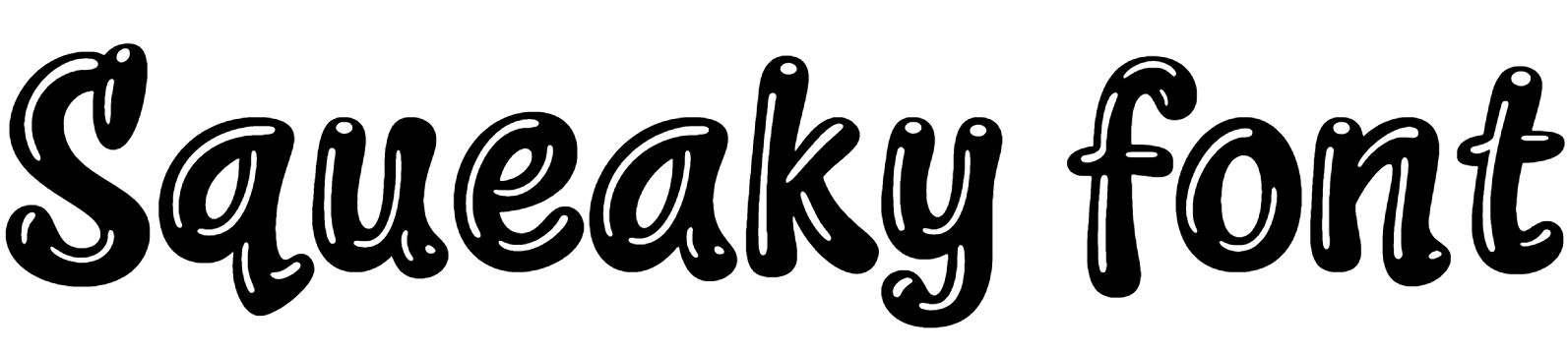
Squeaky font
Squeaky
Squeaky is a cartoon font created by Mans Greback and released through Mans Greback AB. Its bouncy, rounded letters feel playful, like lettering from a cartoon or a comic book. It's a free download, and you can try it with your own text in the preview above first.
What You Can Type With Squeaky
With complete upper and lowercase letters and all ten digits, Squeaky is ready for real wording, not just a single headline. Common punctuation such as &, !, ? and @ is included as well. It also has the accented letters you need for Spanish, French, German, Portuguese and Italian.
Where Squeaky Works Best
Designers usually reach for fonts like Squeaky when they're making kids' books, birthday invites and fun YouTube thumbnails. Cartoon fonts are great for short, fun lines. If you place it over a busy photo, add a thick outline or a drop shadow so it stays readable.
Does Squeaky support accented letters?
Yes. Squeaky includes the accented letters needed for Spanish, French, German, Portuguese and Italian, so it works for more than just English.